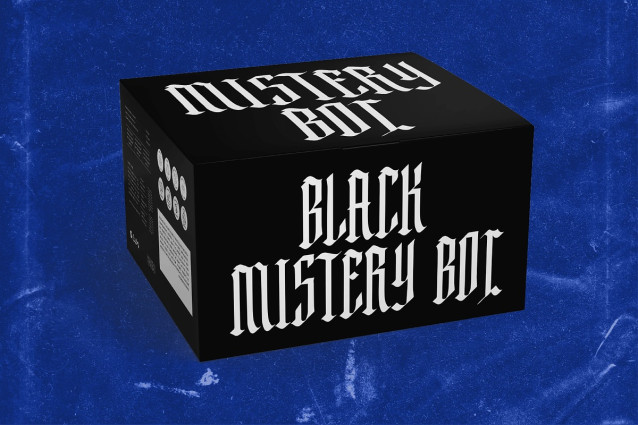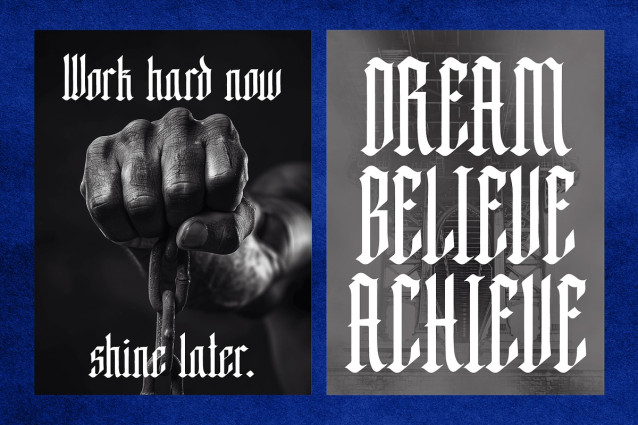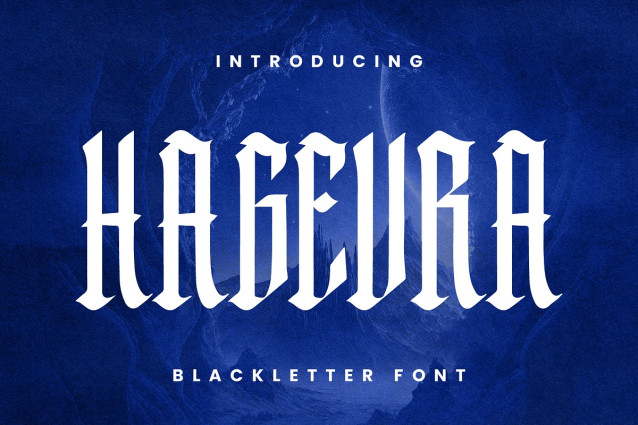
Hagevra Blackletter Font
Hagevra Blackletter Font is a bold and striking blackletter font that blends traditional Gothic aesthetics with a modern edge. Featuring tall, sharp, and assertive letterforms, Hagevra makes a powerful statement in every design. Whether you’re creating motivational posters, album covers, or dramatic branding, this typeface delivers strength, intensity, and style.